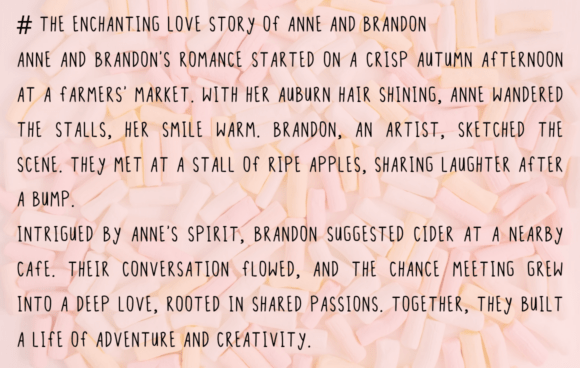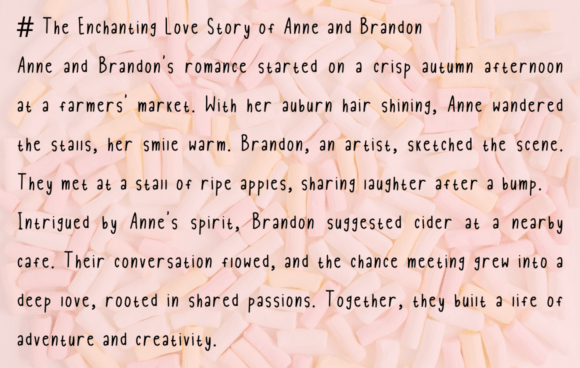
Introduction to Moon Paper Font
Do you ever find yourself pouring your heart and soul into a creative project, only to be stopped in your tracks by the perfect font? That’s exactly what happened to me when I stumbled upon the Moon Paper Font. Its elegant, hand-crafted aesthetic was the missing piece I needed to elevate my design to the next level. With its tall, slender strokes and subtle hand-lettered irregularities, this typeface is a game-changer for designers looking to add a touch of understated luxury to their work.
As a valuable design resource, the Moon Paper Font is a must-have for any creative project. Its high-quality design ensures that every word is legible and visually appealing, even on a transparent background. Whether you’re working on high-end packaging, digital journals, or social media graphics, this font is sure to impress. And the best part? It’s available for free download, making it an accessible addition to any design arsenal.
- High-quality design resource ideal for creative projects, offering a unique aesthetic.
- Designed with a minimalist approach, providing a clean and modern look for any creative project.
- Perfect for use in digital and print media, including logos, branding materials, and editorial content.
Honest Review: Moon Paper Font
As a designer, I’m always on the lookout for high-quality design resources that can elevate my creative projects. Recently, I came across the Moon Paper Font, and I’m excited to share my honest review with you.
What works well: ✨ The Moon Paper Font is a beautifully designed script font that adds a touch of elegance to any project. The transparent background allows for seamless integration with any design element, making it a versatile choice for a wide range of creative projects.
- High-quality design that’s perfect for invitations, quotes, and other creative projects.
- Transparent background for easy integration with other design elements.
Any limitations: ⚠️ While the Moon Paper Font is a great addition to any designer’s toolkit, I did find it to be a bit limited in terms of character set and font size options.
Overall impression: I’m really impressed with the Moon Paper Font, and I’ve already added it to my design resources. It’s a great choice for designers looking for a high-quality, elegant script font that’s easy to use and customize.
Moon Paper Font
Moon Paper Font is a high-quality design resource perfect for your next creative project. This free download offers a transparent background, making it ideal for use in a variety of applications.
Tips for Getting the Most Out of Moon Paper Font
To get the most out of Moon Paper Font, experiment with different font sizes and colors to create a unique and eye-catching design. You can also use the font in combination with other design elements to create a cohesive and visually appealing design.
Moon Paper Font is perfect for use in a variety of creative projects, including digital invitations, social media graphics, and print materials. Its high-quality design and transparent background make it ideal for use in a variety of applications.